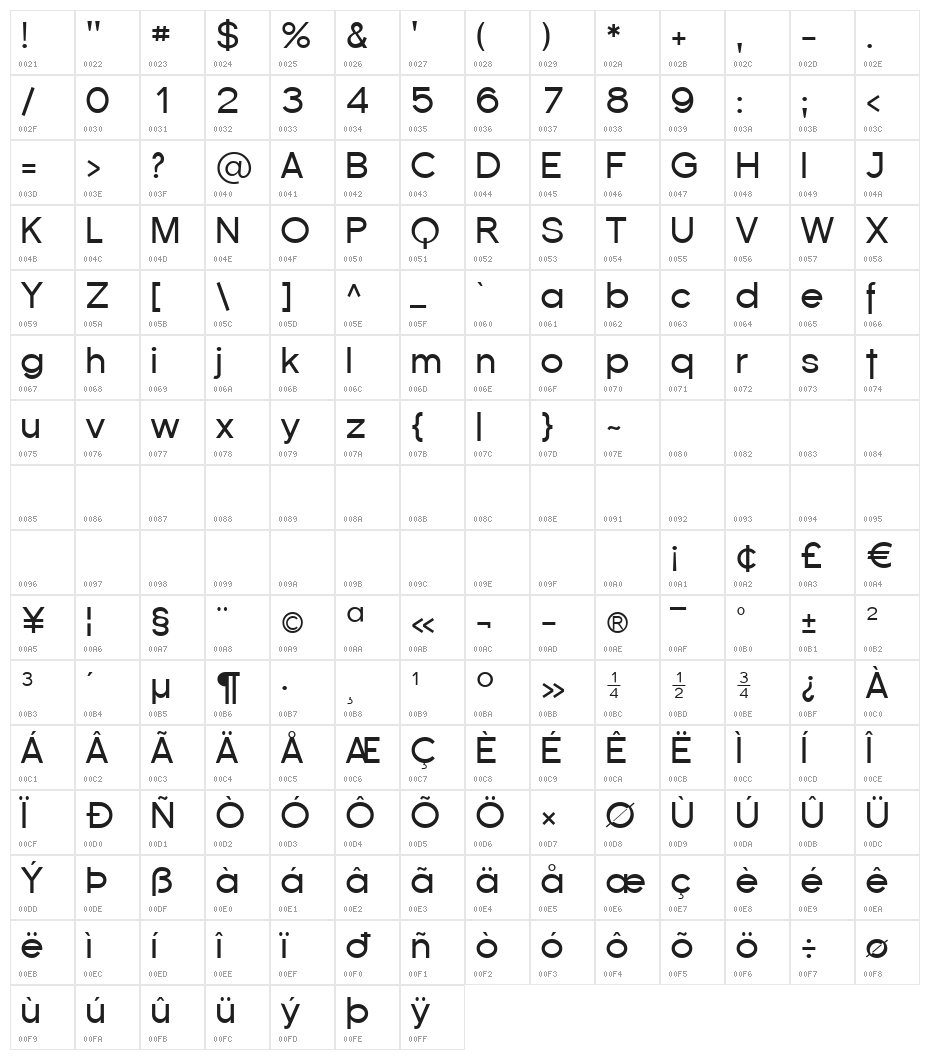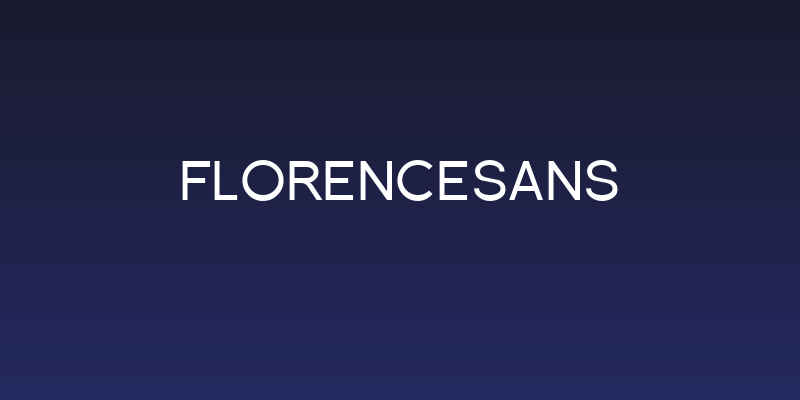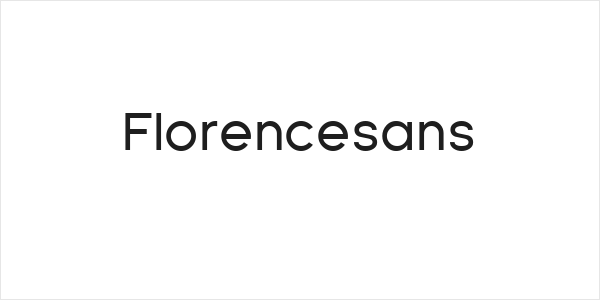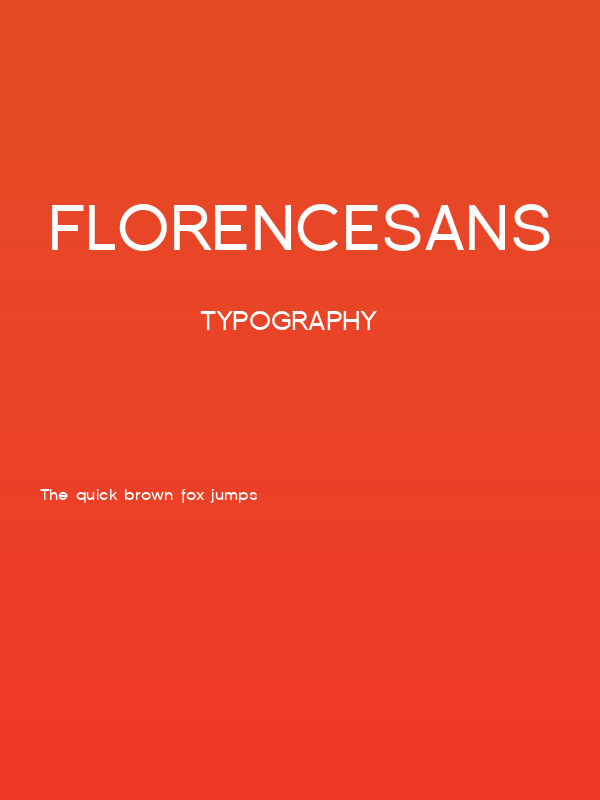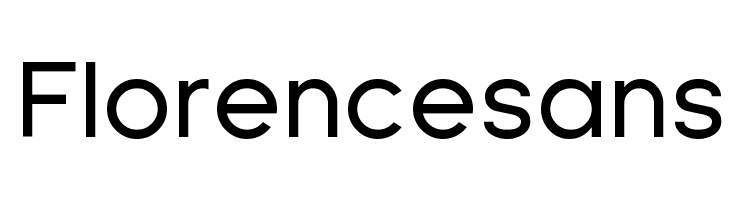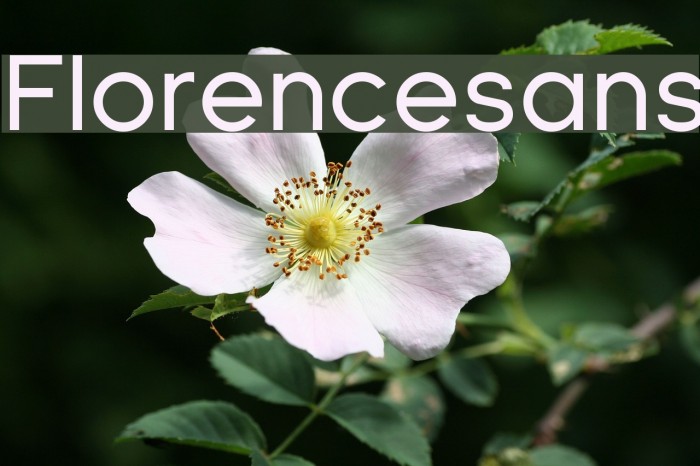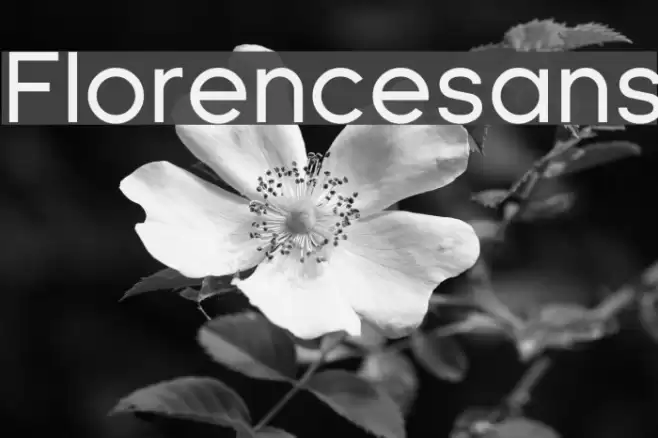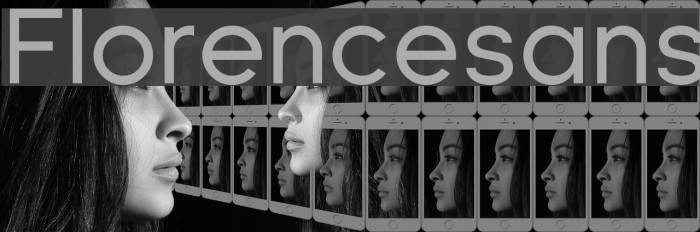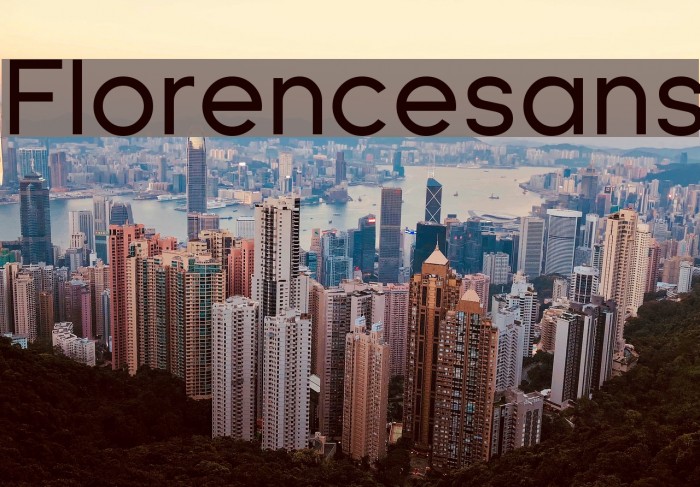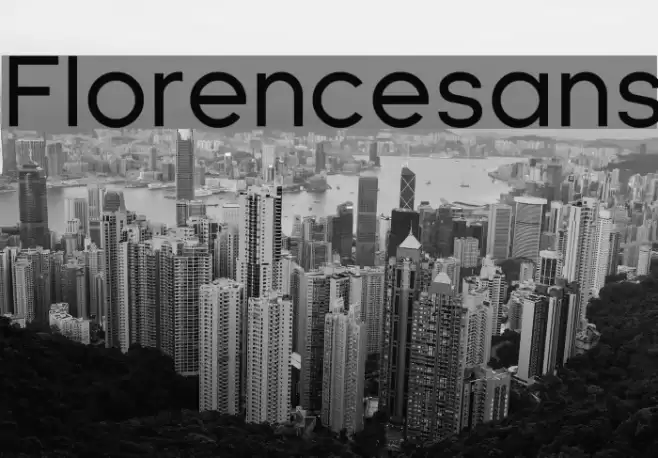
Florencesans Font
Florencesans Description
This font features a clean and modern sans-serif design, characterized by its geometric shapes and uniform stroke widths. The letters are well-balanced with a consistent height and width, providing a harmonious appearance. The uppercase and lowercase letters are distinct yet complementary, with rounded edges that soften the overall look. The numerals are clear and easy to read, making them suitable for various applications. The special characters maintain the same geometric style, ensuring consistency across all elements.
| Use Case | Headlines, Body text, Logos |
| Proposed Projects | Ideal for branding, web design, advertising, and editorial projects where a modern and clean aesthetic is desired. |